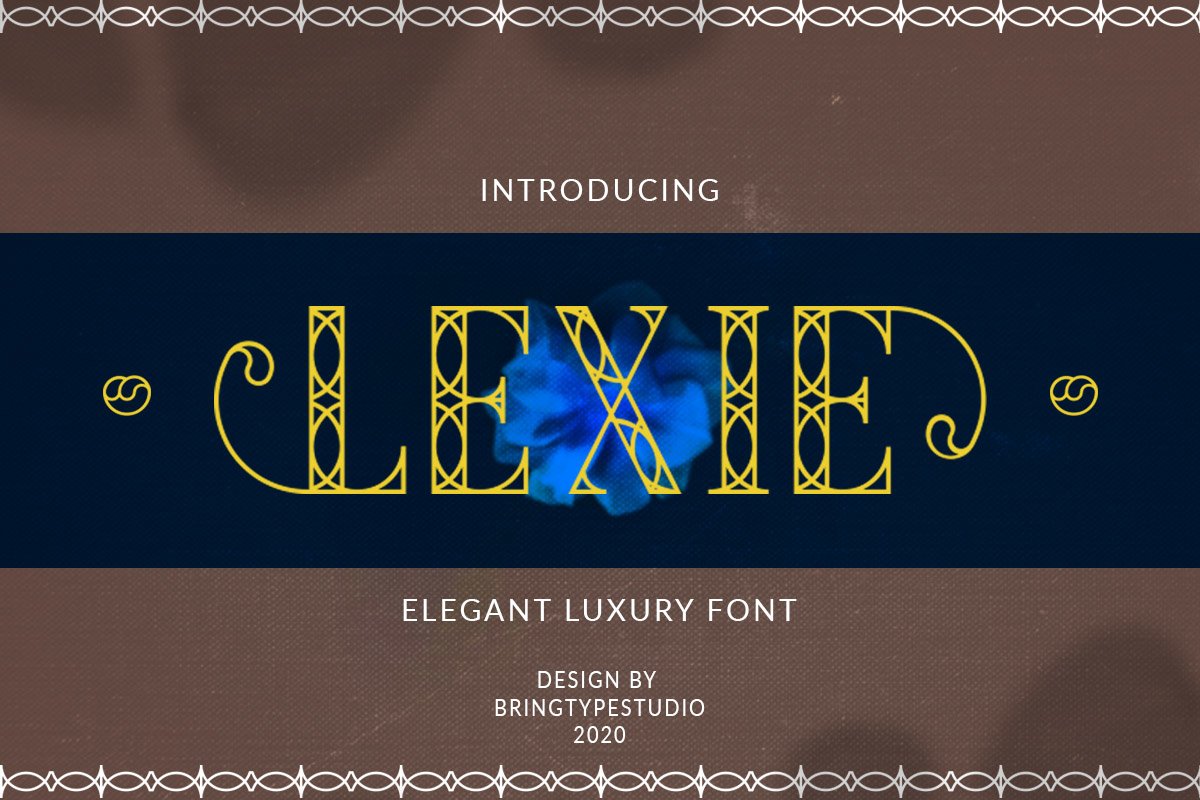
Lexie - Luxury Fonts
Lexie Italic
Lexie
Hello everyone ...... this is a LEXIE font made with elegant lines and circles that makes it a luxury font, this font is perfect for writing a look that makes it professional and more. LEXIE also includes multilingual, numbers, alternatives, punctuation.